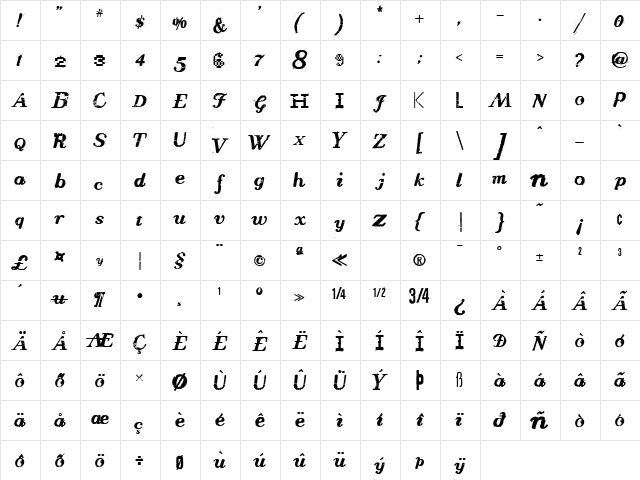
Jaguarundi Regular
| Foundry | Ryoichi Tsunekawa |
| Designer | Ryoichi Tsunekawa |
Design Context for Jaguarundi Typeface
Jaguarundi is a composed and adaptable typeface that performs quietly and consistently across a wide range of design contexts.